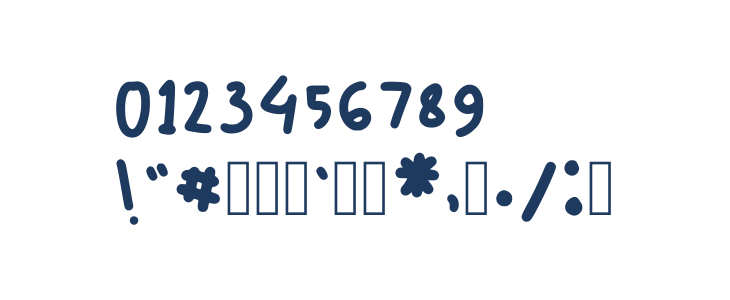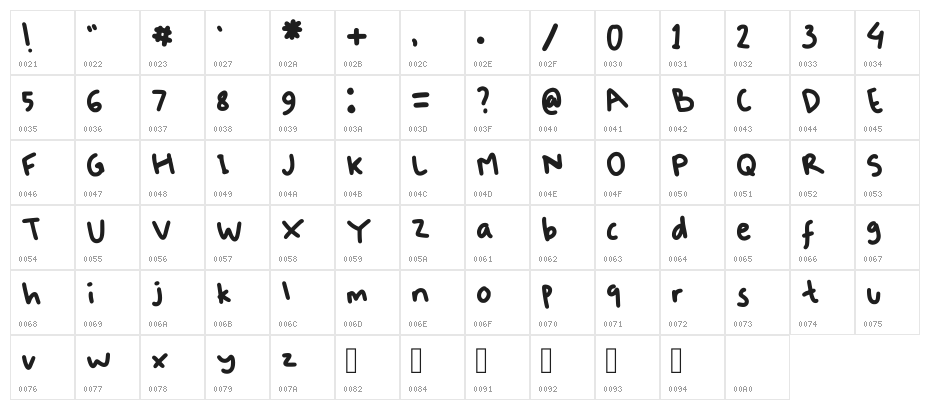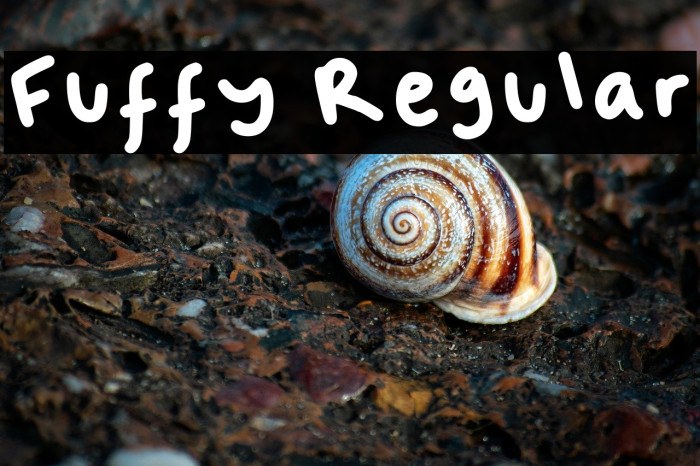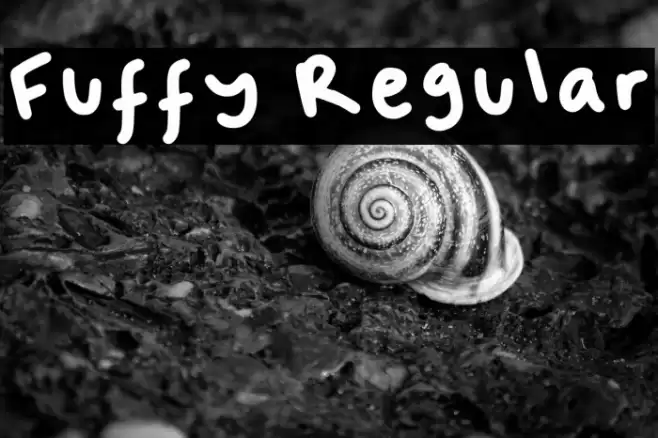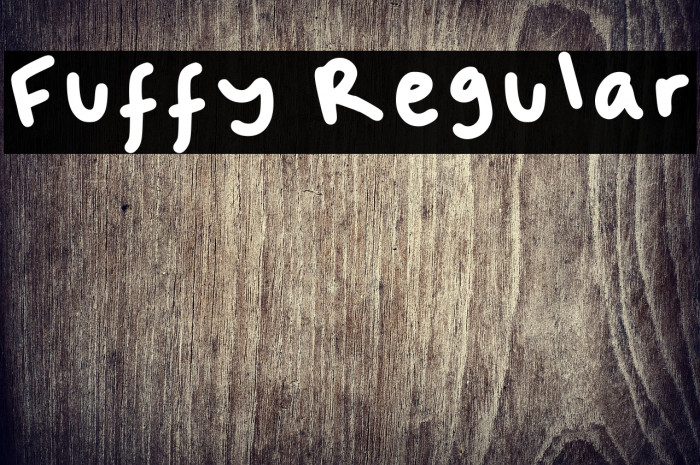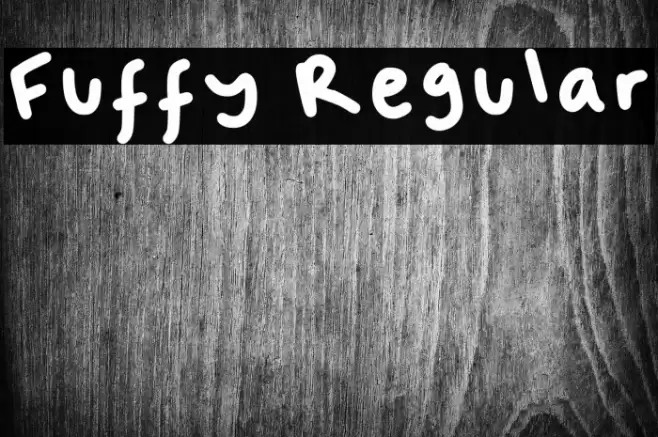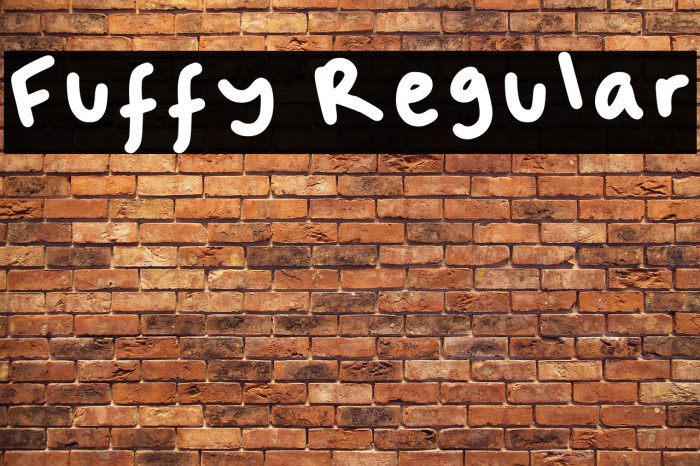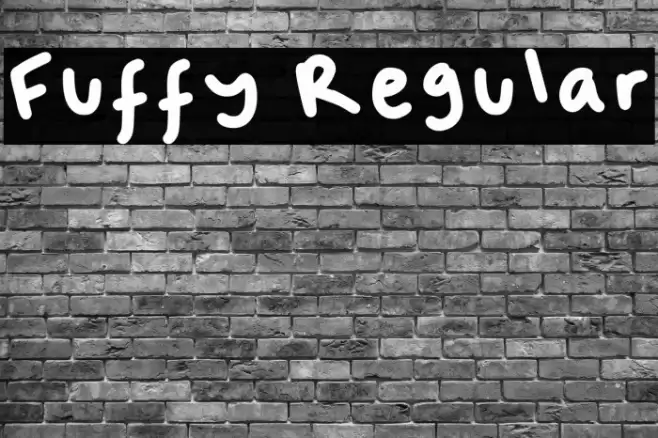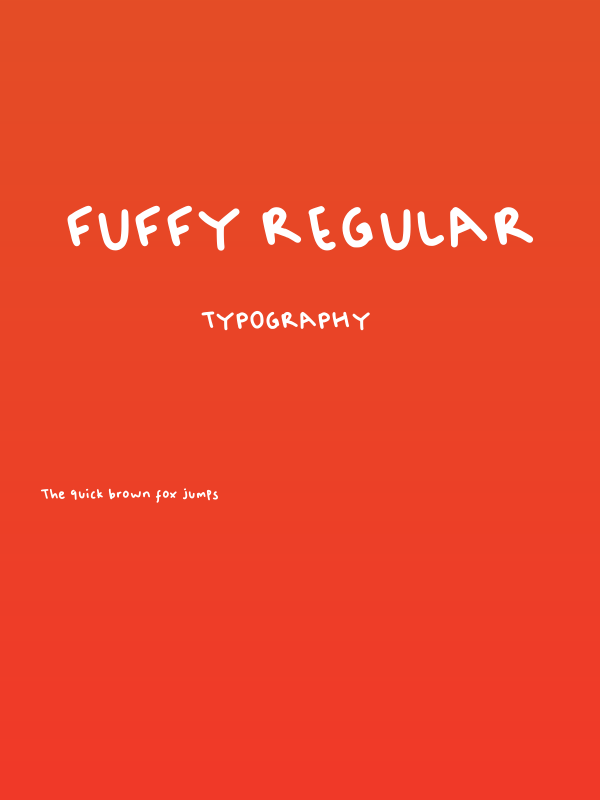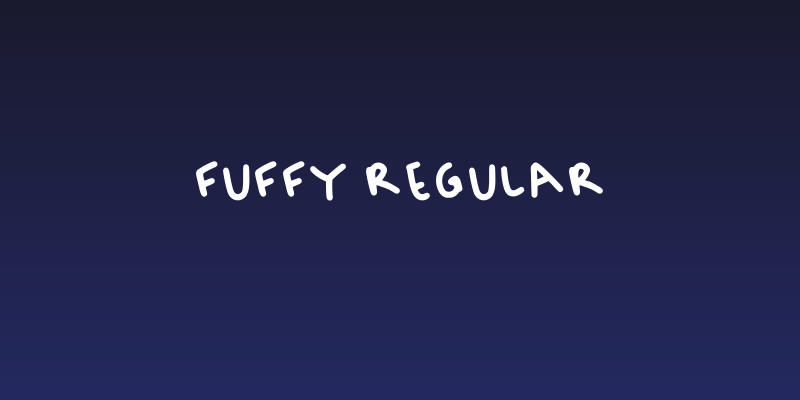
Fuffy Regular Font
Fuffy Regular Description
This playful and whimsical font features a handwritten style with rounded, slightly irregular strokes that convey a casual and friendly tone. The characters are bold and have a consistent thickness, giving them a strong presence on the page. The uppercase and lowercase letters maintain a uniform height, while the numerals are slightly larger, ensuring readability. Special characters are creatively designed, adding to the font's charm. The overall appearance is informal and approachable, making it suitable for projects that require a personal touch.
| Proposed Projects | Ideal for children's books, greeting cards, playful branding, and social media graphics. |